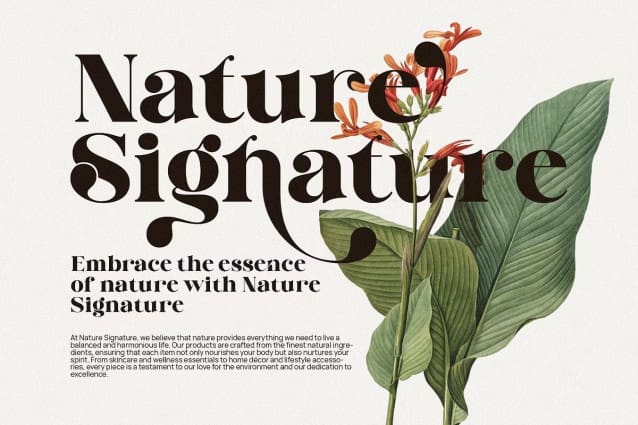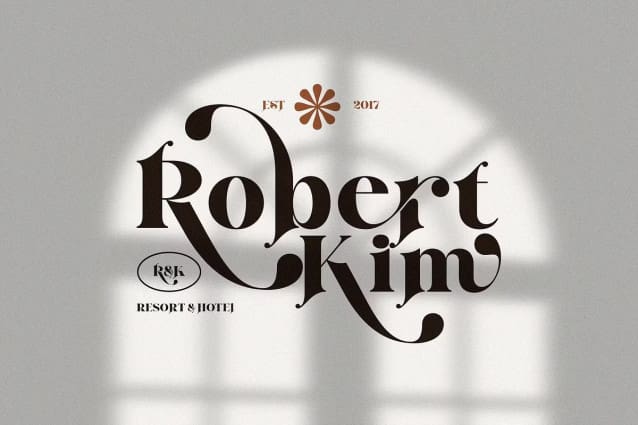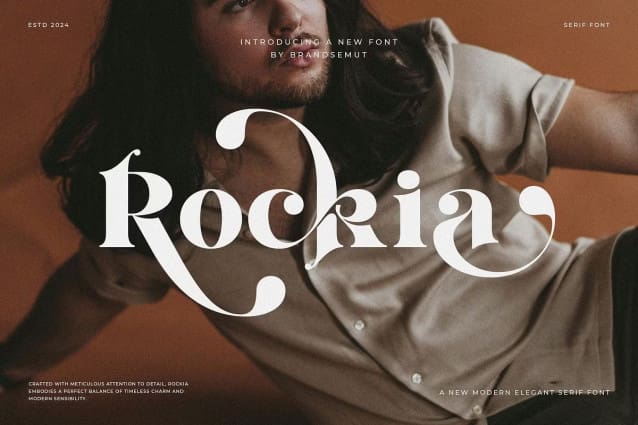
Rockia Font
Rockia Font is a elegant, classy and modern display serif, best used as a display for headings, logos, branding, magazines, product packaging and invitations. Rockia equipped with Ligature and many Alternates and come with clean lines and smooth curves give any project an extra touch of class.